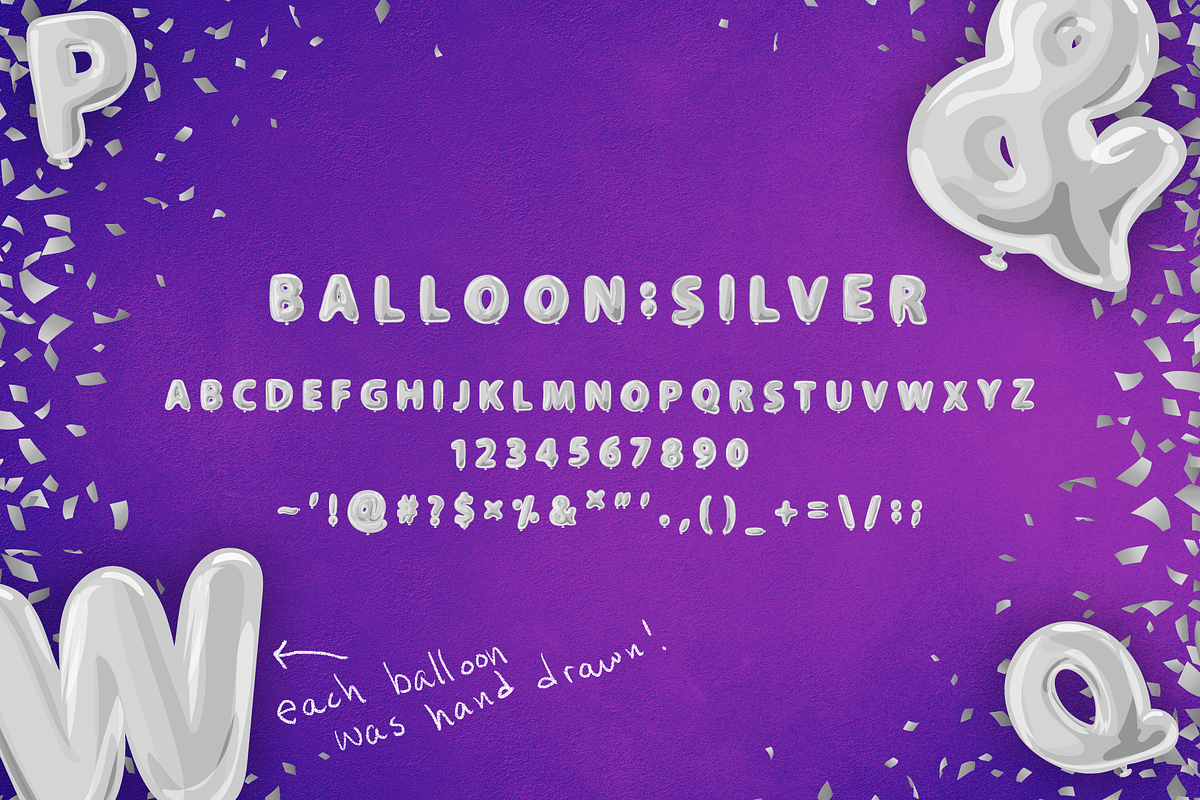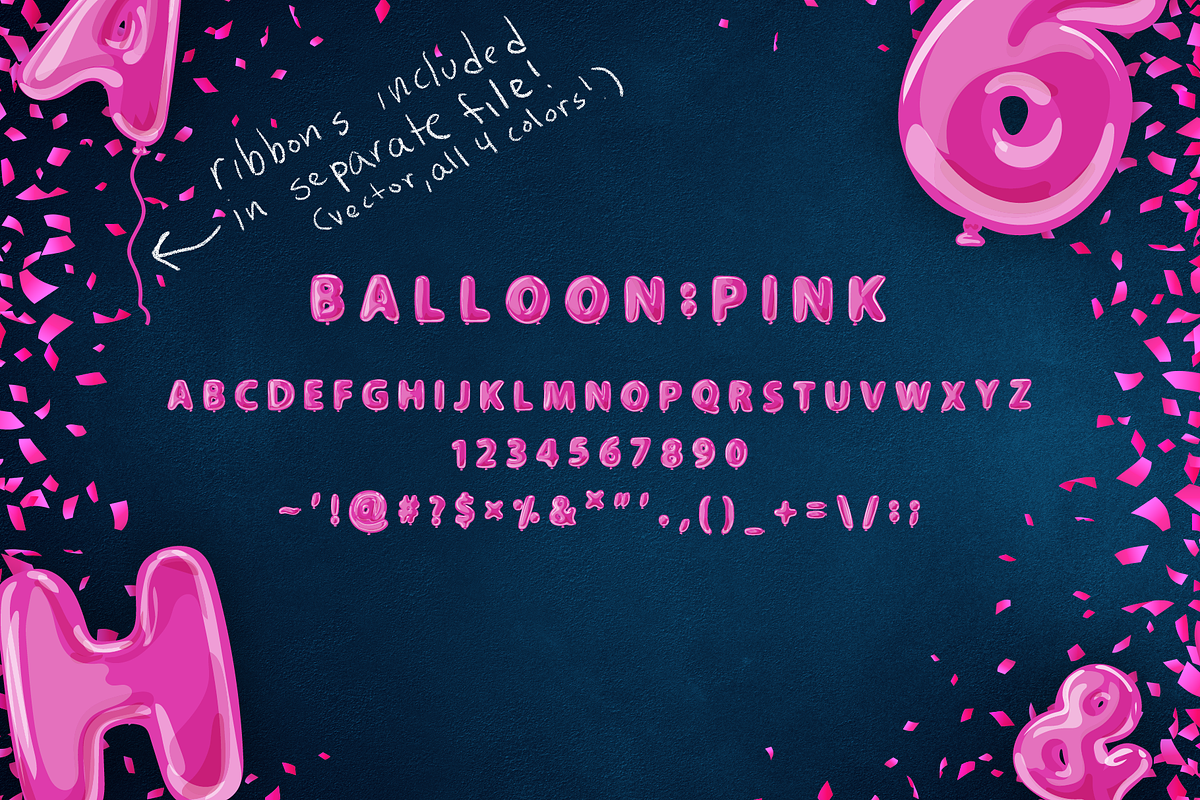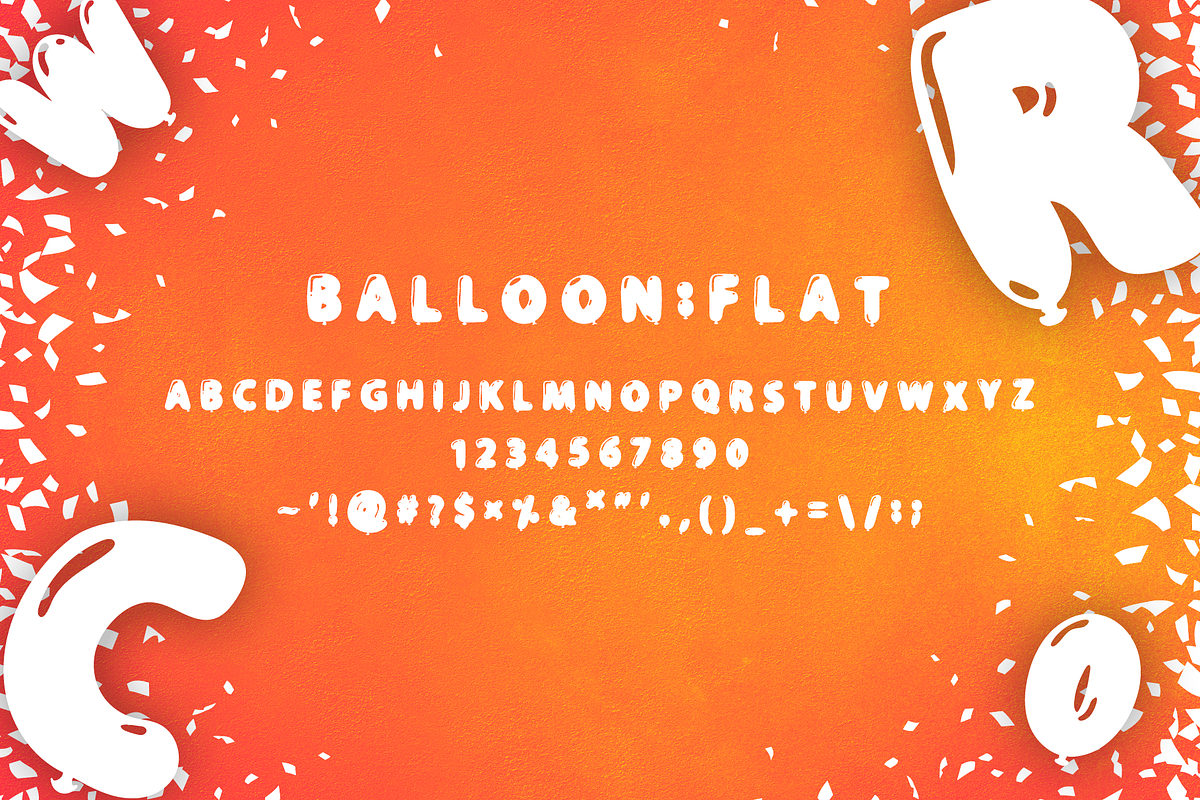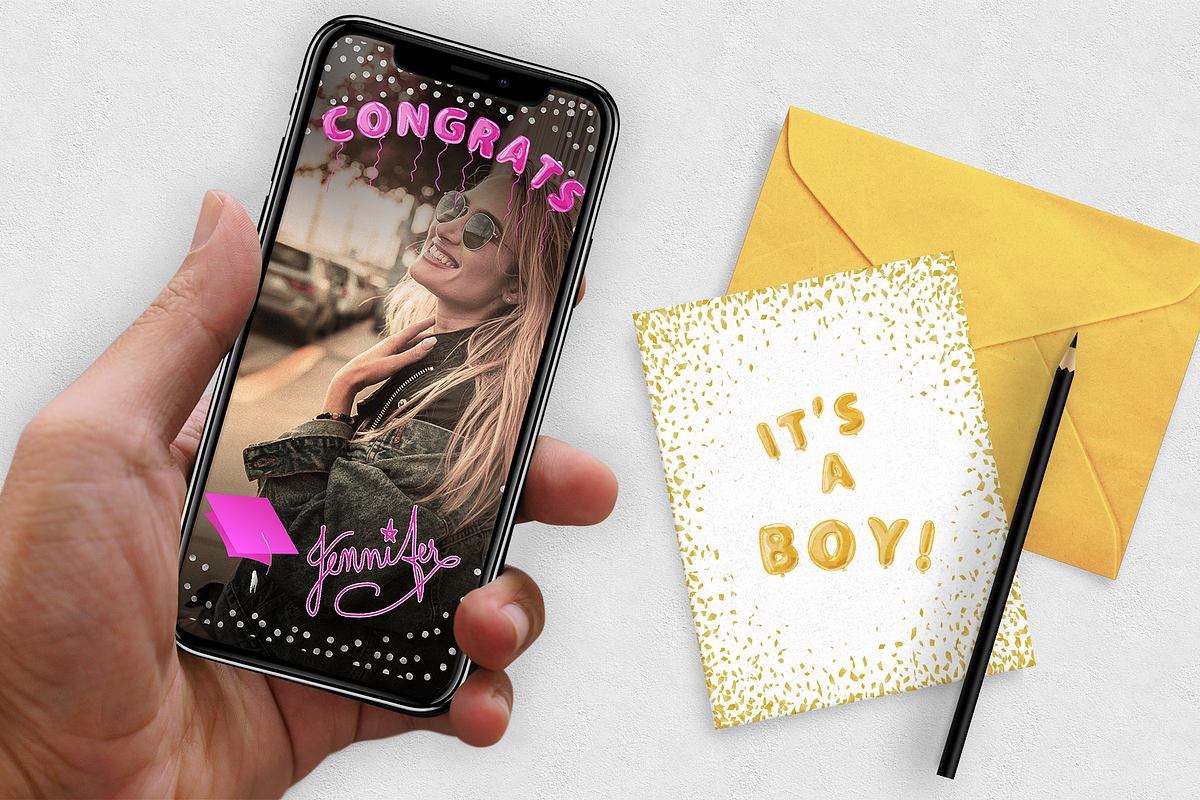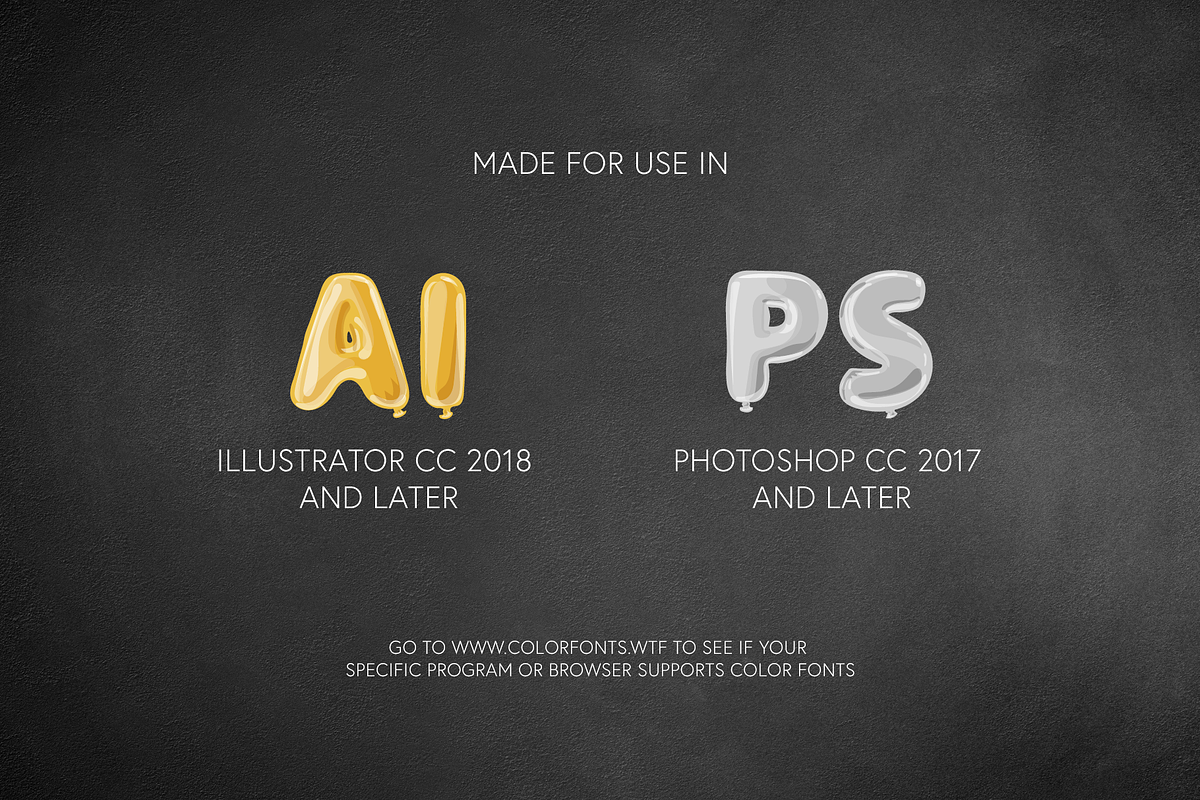
Foil Balloon Font pink gold silver
Been looking for a balloon font that's scalable, cute and colorful? Look no further! Each character in this font was hand drawn by yours truly after a million requests from my clients for foil balloons on their social content, custom snapchat filters and print materials.